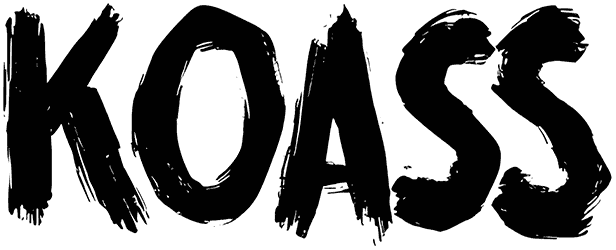
Koass Font
If your design needs a unique style to convey a cool vibe, this brush font would be a perfect solution. The characters are bold and realistic, but it should be mentioned that this poster font doesn’t support lowercase letters and some numbers. Test the Koass font for your new presentation, such as a scary movie poster, and see the last draft.